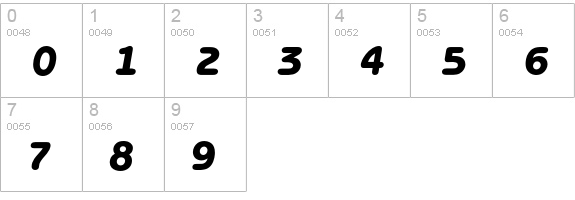
Benguiat Gothic* Heavy Italic Font Details
Benguiat Gothic* Heavy Italic is a heavy, high-impact, italic variant in the Benguiat typeface family \xE2\x80\x94 well suited to high-impact headlines, posters, and display advertising.
Introducing Benguiat Gothic* Heavy Italic font - a bold, dynamic typeface that exudes strength and modernity. With its striking slanted design and thick strokes, this font commands attention and makes a powerful statement. Perfect for headlines, logos, and branding materials, Benguiat Gothic* Heavy Italic adds a touch of edginess and sophistication to any project. And the best part? This impressive font is available for free download at FontsMarket.com. Embrace the boldness and creativity of Benguiat Gothic* Heavy Italic font today and take your designs to the next level.